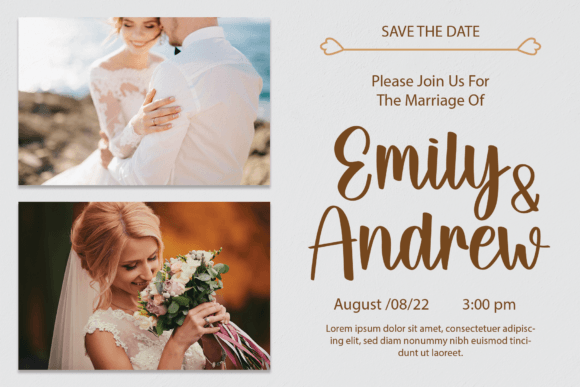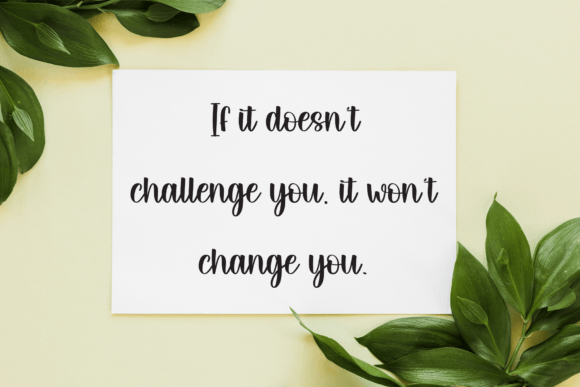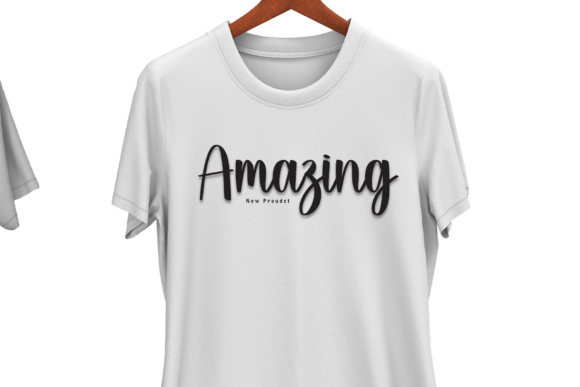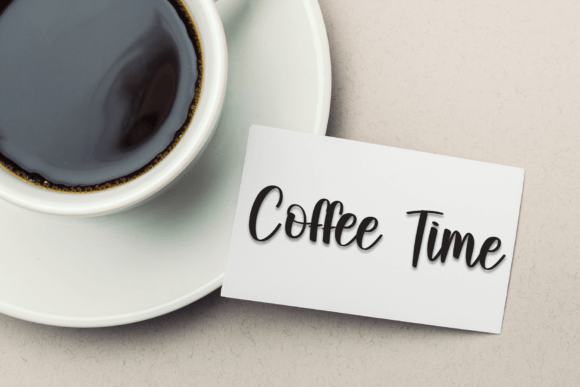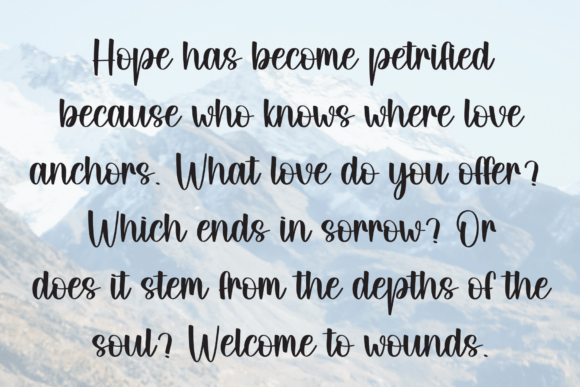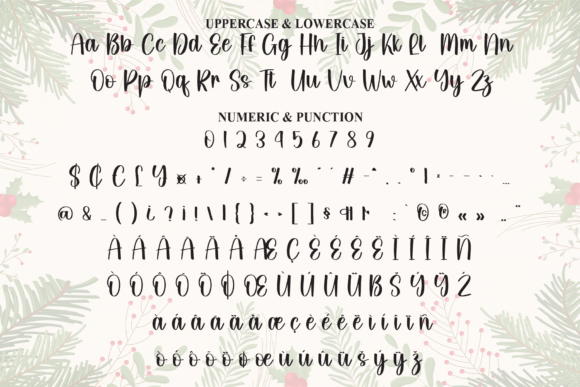
Discover the Magic of Christmas September Font
It’s that time of the year again – Christmas is just around the corner, and as designers, we’re scrambling to create festive and fun holiday projects. I still remember the year I was tasked with designing a Christmas card for a client’s family, but I was struggling to find the perfect font. The project required a bold, yet playful look that captured the warmth and spirit of the season. That’s when I stumbled upon Christmas September Font, and it instantly became my go-to for all my holiday designs.
A Personal Review of Christmas September Font
Christmas September Font is a bold handwritten font that embodies the warm, festive spirit of Christmas. Here are some things I love about this font:
• ✨ Playful and round letters that are easy to read and perfect for holiday greetings, cards, and decorations.
• ✅ Fun and cheerful style that adds a personal touch to any Christmas design.
• 🎉 Versatile and adaptable – works well for both digital and print projects.
While Christmas September Font is amazing, there are a few quirks to keep in mind:
• 🤔 Limited use of uppercase letters – best used for titles, headings, or emphasis.
• ⚠️ Some letters may appear a bit distorted when used at very small sizes.
Alternative Fonts to Christmas September Font
If you’re looking for similar fonts or alternatives, here are a few options:
• Snowball Script – A whimsical, handwritten font perfect for children’s holiday projects.
• Jingle Bell Rock – A fun, bold font with a playful, festive vibe.
• Candy Cane Lane – A sweet, cursive font ideal for holiday cards and invitations.
• Frosty Morning – A crisp, wintery font great for Christmas-themed posters and flyers.
The Story Behind Christmas September Font
Christmas September Font was designed by a talented type designer who wanted to capture the essence of Christmas in a playful, handwritten font. Inspired by holiday decorations, festive lights, and joyful winter moments, this font is meant to evoke a sense of warmth and cheer.
Is Christmas September Font suitable for digital and print projects? Yes, Christmas September Font works well for both digital and print projects.